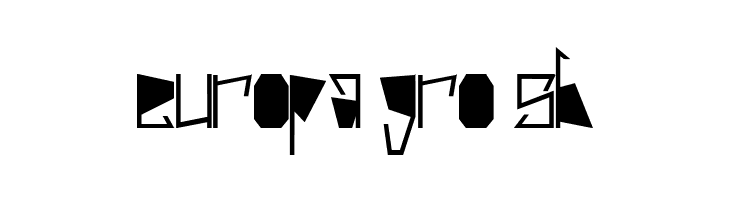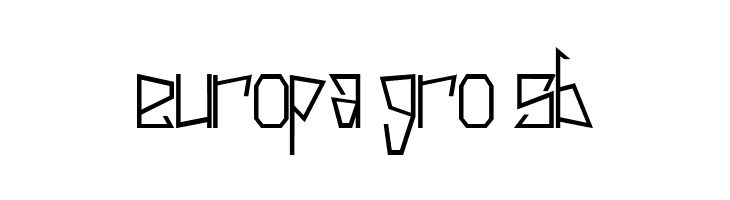
A geometric, angular font with bold, abstract forms for a modern, edgy look.
A geometric, angular font with a futuristic and edgy design.
A bold, angular font with sharp edges and geometric shapes, ideal for modern designs.